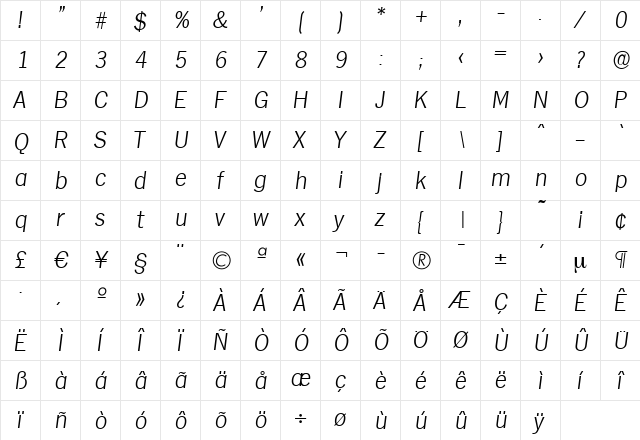
StephenBecker-ExtraLight Italic Font Preview
StephenBecker-ExtraLight Italic
StephenBecker-ExtraLight Italic Font Details
Design Context for StephenBecker-ExtraLight Typeface
StephenBecker-ExtraLight is a composed and adaptable typeface that performs quietly and consistently across a wide range of design contexts. Its italic angle brings a sense of urgency and motion to the letterforms. Its slender proportions lend an understated elegance to any composition.
Pro Tip: Use StephenBecker-ExtraLight for emphasis, pull quotes, and subheadings where its slanted energy can add rhythm to the layout.